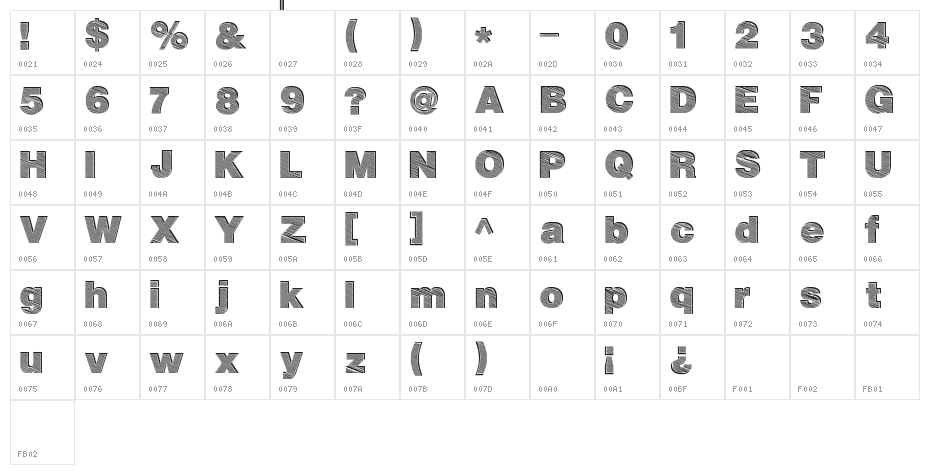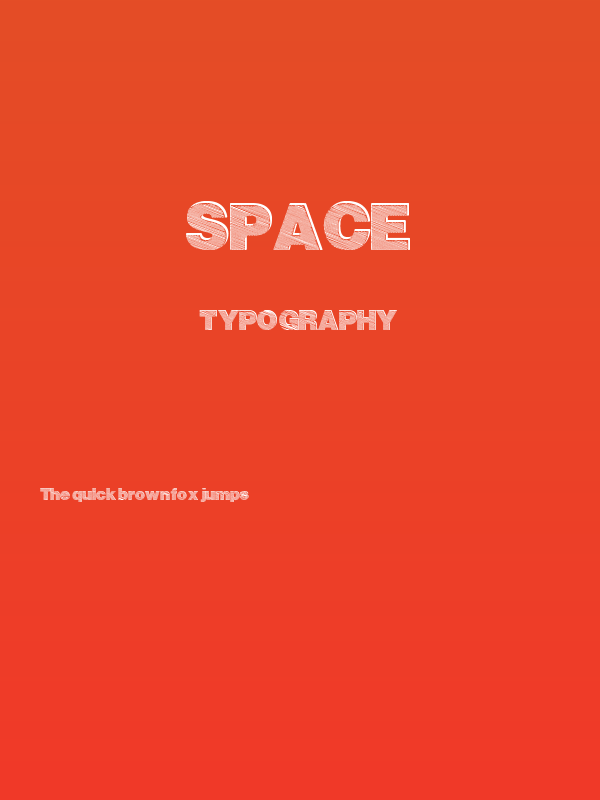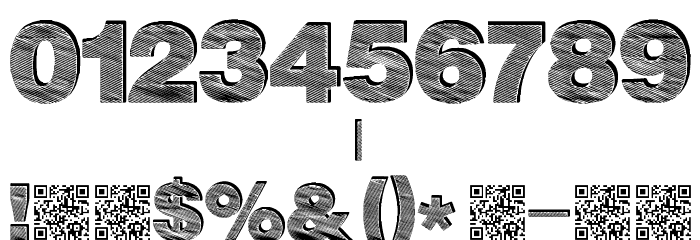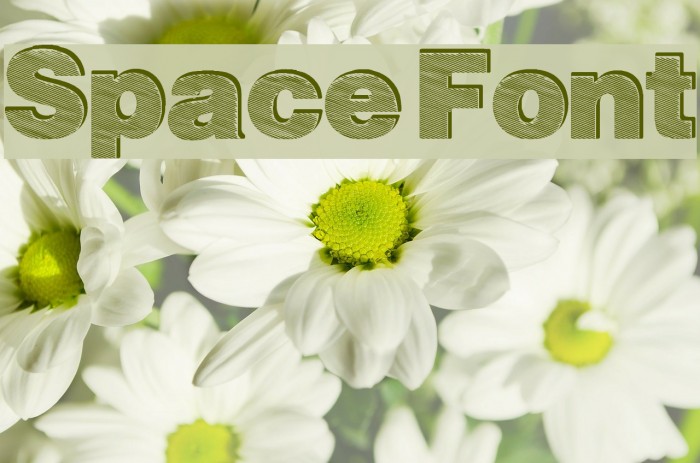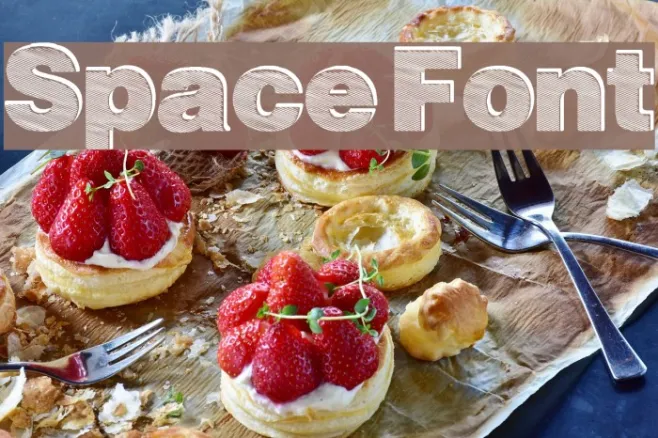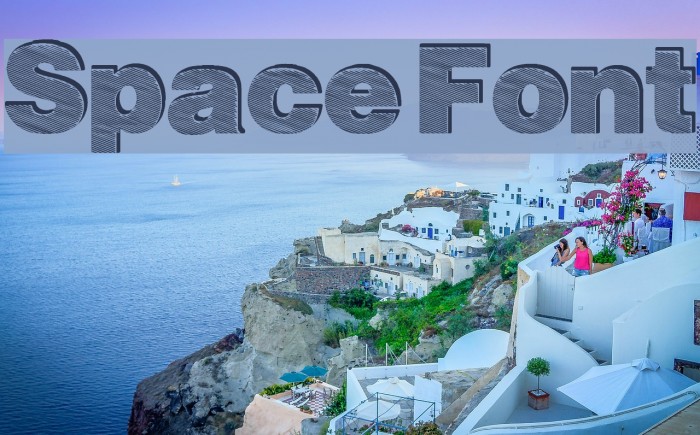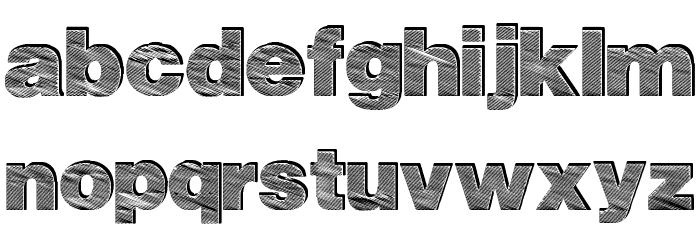
Space Font
Space Description
This font features a bold and impactful design with a unique textured pattern that resembles diagonal lines or shading across each character. The uppercase and lowercase letters maintain a consistent thickness, providing a strong visual presence. The numerals and special characters follow the same stylistic approach, ensuring uniformity throughout. The font's design is both modern and decorative, making it suitable for attention-grabbing headlines or creative projects. Its distinct appearance sets it apart from traditional typefaces, offering a fresh and dynamic look.